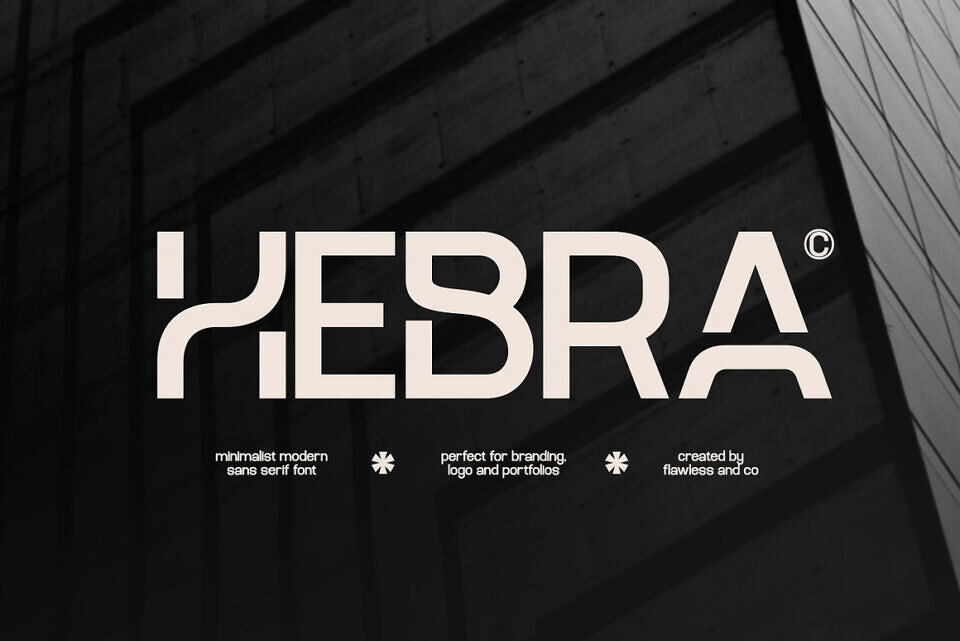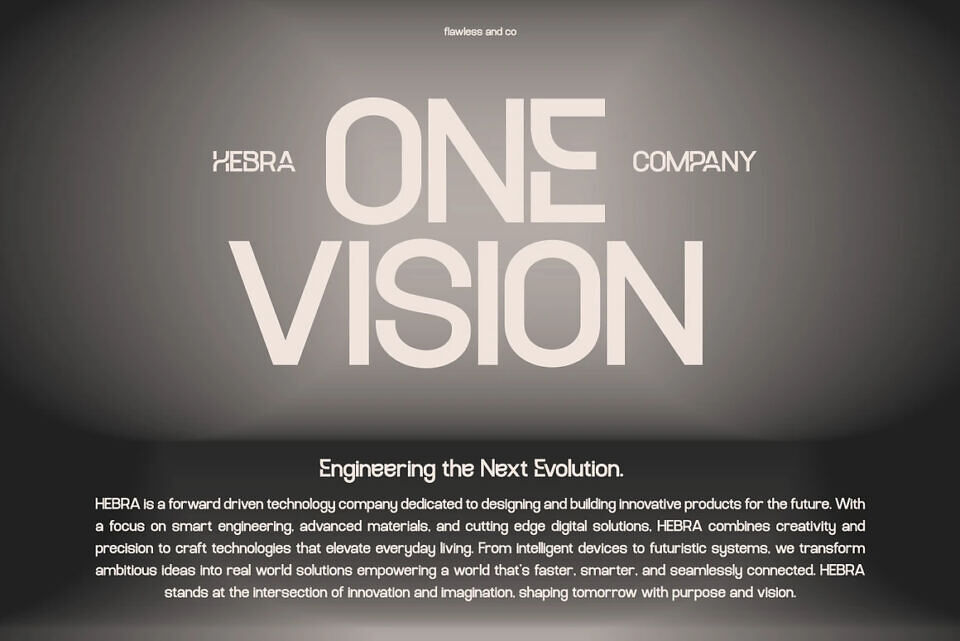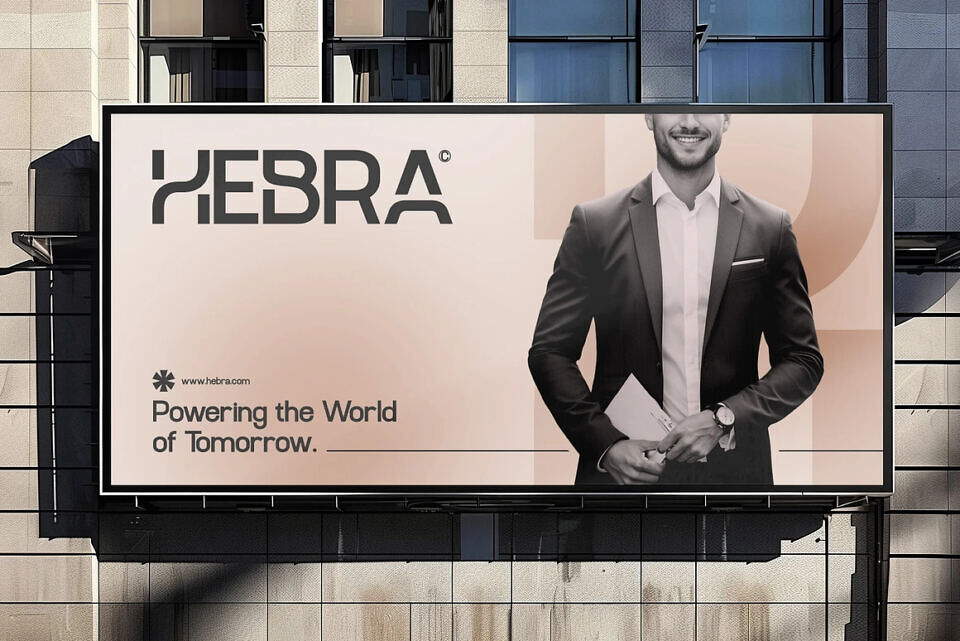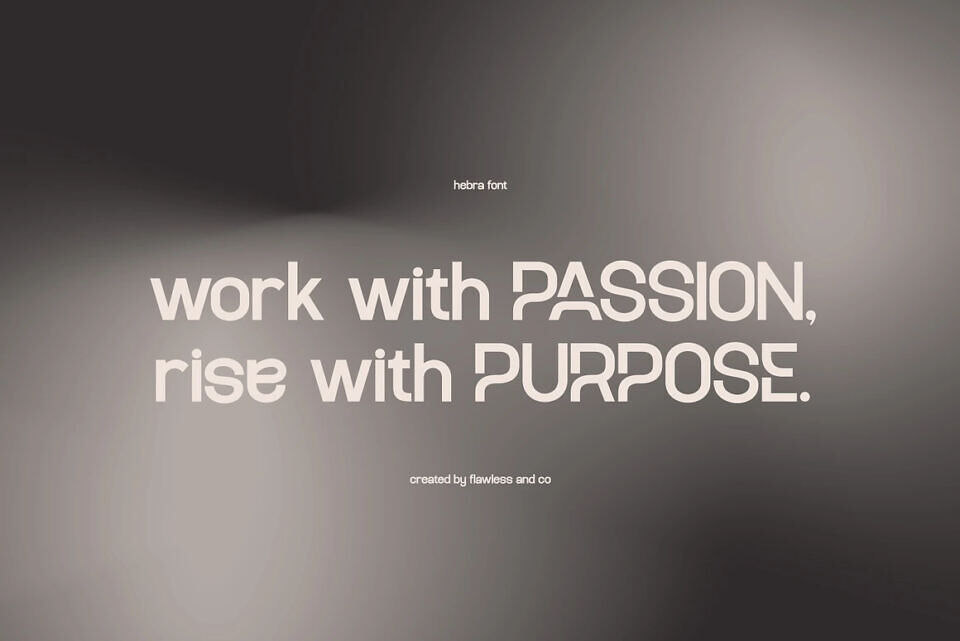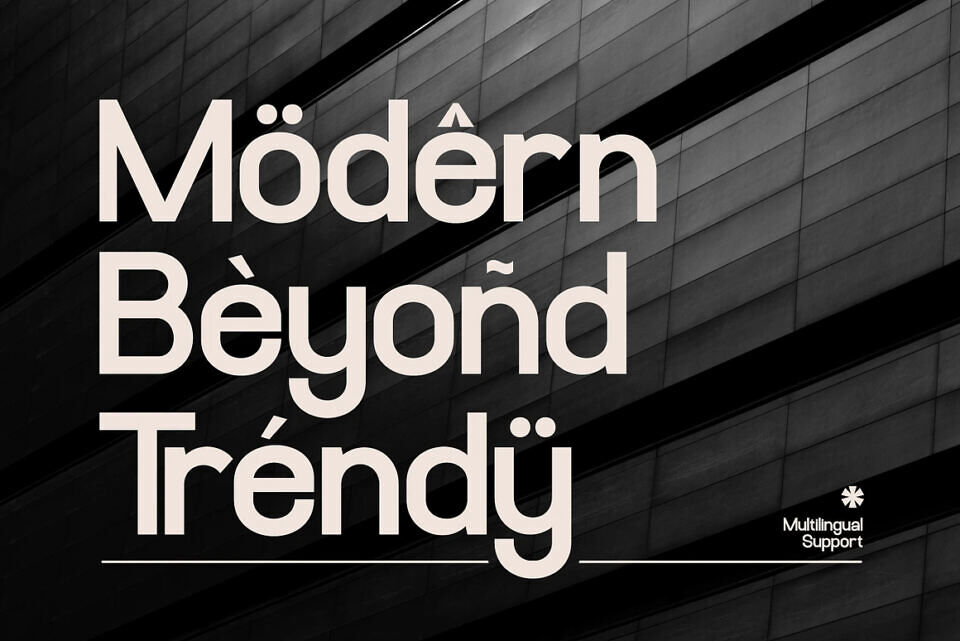
Hebra Font
Hebra is a minimalist modern sans serif font designed for creators who appreciate clarity, precision, and forward-thinking aesthetics. With its clean geometry, subtle futurism, and perfectly balanced letterforms, Hebra delivers a crisp visual identity that feels both contemporary and timeless.
Crafted to elevate branding, packaging, portfolios, editorial layouts, and digital interfaces, Hebra brings a refined modern tone that instantly enhances any visual project. Whether you’re building a sleek corporate identity or a stylish creative presentation, Hebra ensures your typography looks fresh, confident, and unmistakably modern.